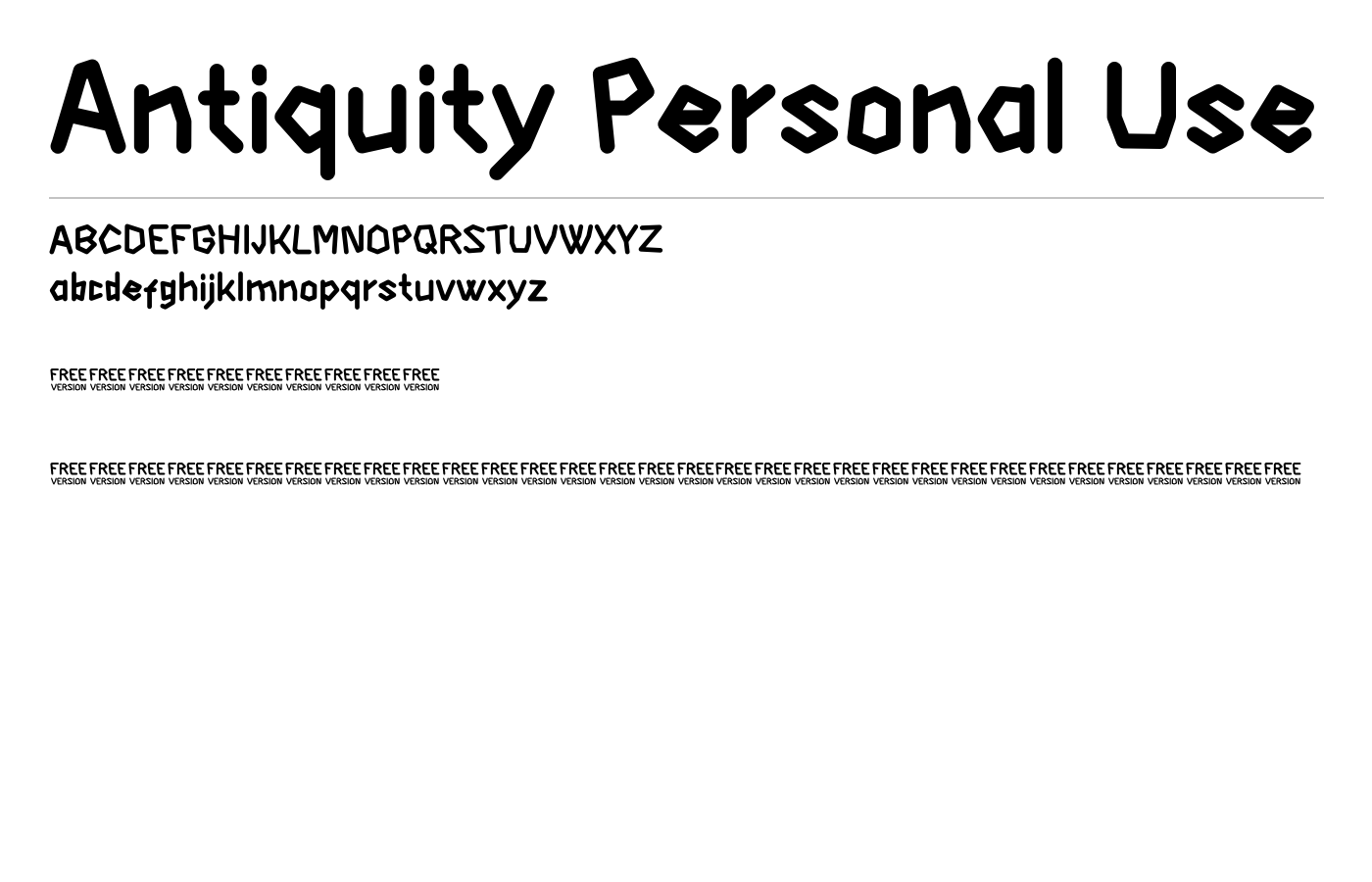
Antiquity Personal Use is a playful, hand-drawn sans serif font with irregular, geometric letterforms that give it a quirky, casual vibe. Its moderate weight and wide spacing make it easy to read while maintaining a unique, informal charm, perfect for creative projects, children’s books, and fun branding that needs personality and approachability. This font works well in headlines and display uses where a lively, friendly touch is desired.
Antiquity Personal Use Font
About Antiquity Personal Use Font